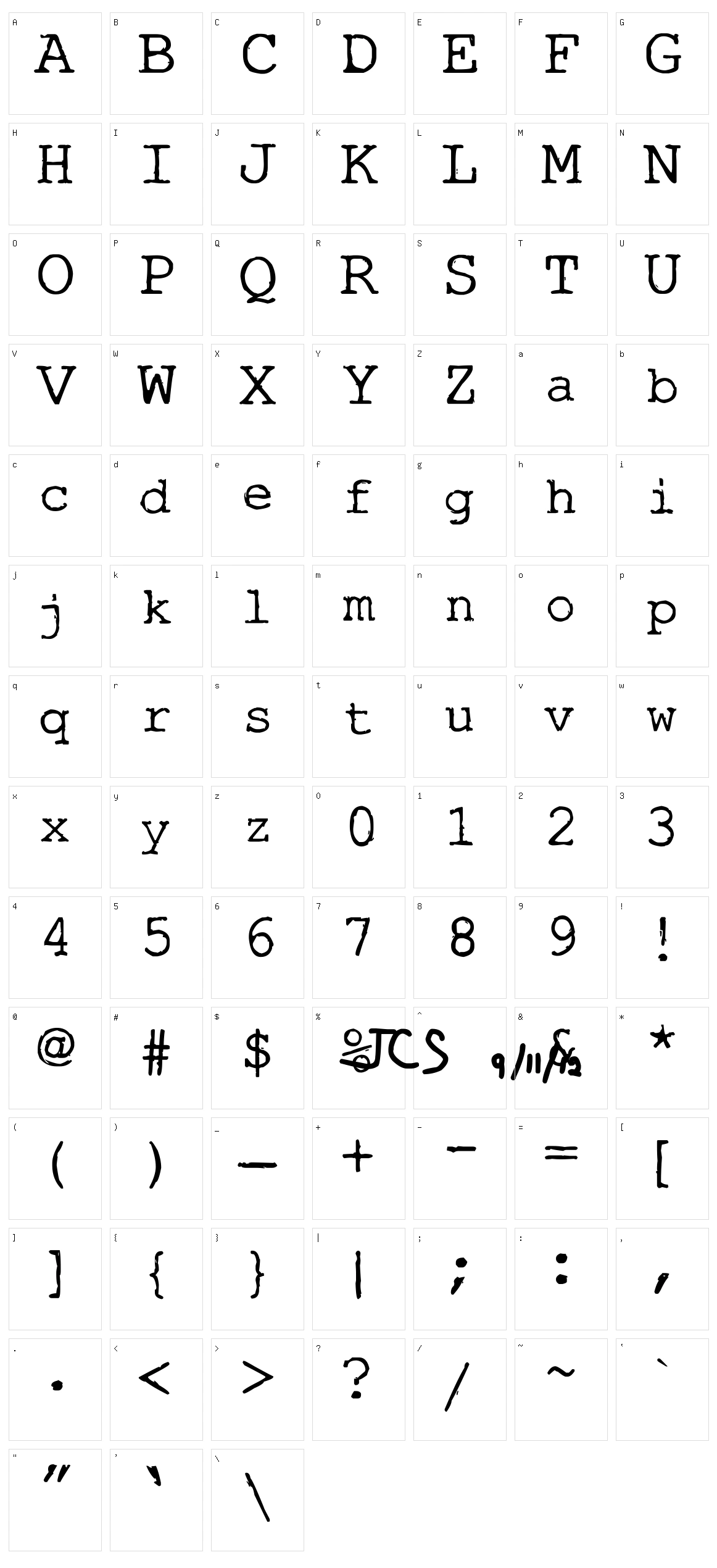
The free font Typo is carefully designed by FontPanda, showcasing a thoughtful balance of creativity and usability and falls under the Typewriter font style. When you download the ZIP file, it contains only 16.64 KB of font files, making it lightweight and quick to download. Please review the license details below to understand permitted usage and distribution rights. If license information is not available, we recommend using this font for personal projects only or contacting the author directly for commercial usage permissions.